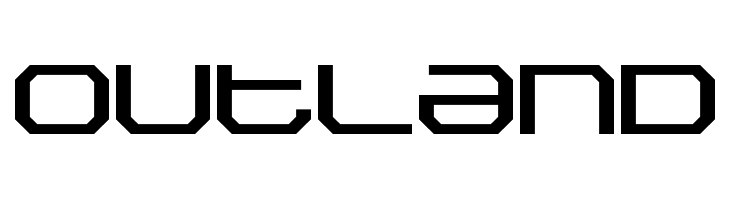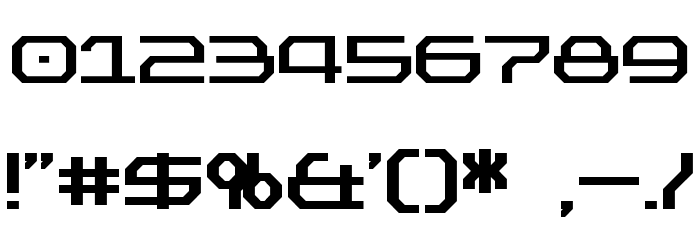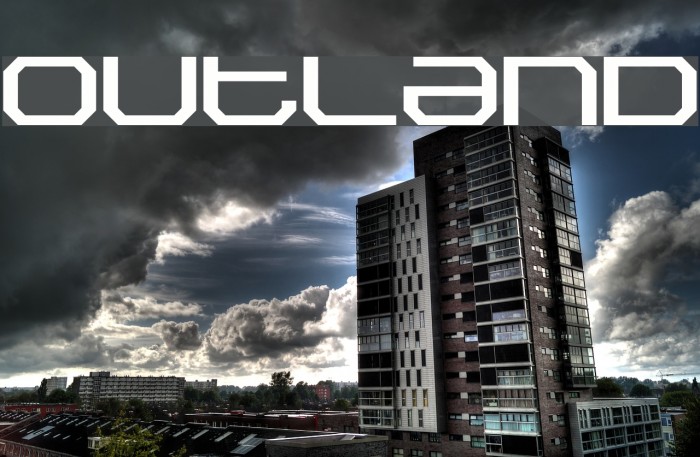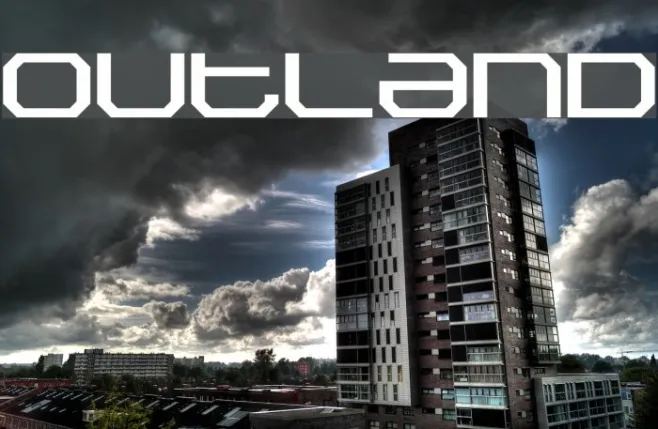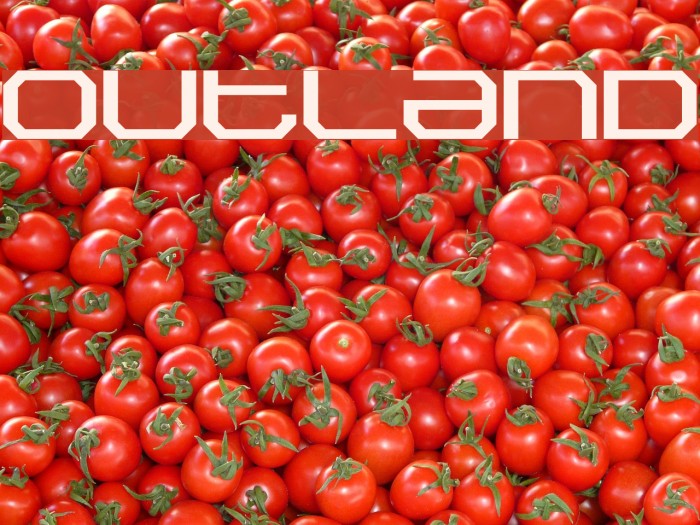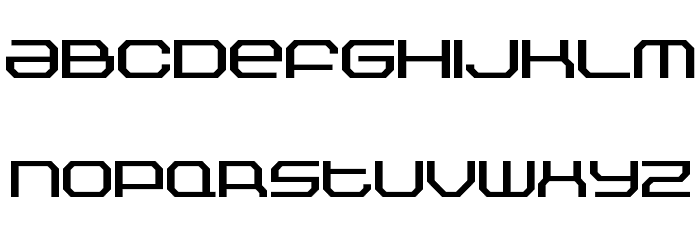
Outland Font
This font features a futuristic and geometric design, characterized by its angular and block-like letterforms. The uppercase and lowercase letters share a consistent style, with sharp edges and a uniform thickness throughout. The numbers and special characters maintain this cohesive look, adding to the font's modern and tech-inspired aesthetic. The overall appearance is clean and structured, making it suitable for projects that require a contemporary and innovative touch. Its distinct style can be effectively used in digital interfaces, gaming titles, or technology branding.
A futuristic, geometric font with angular, block-like letterforms.
• Proposed Projects: Ideal for technology branding, gaming titles, digital interfaces, and modern advertising.
• Category: Decorative/Display
• Contrast: Low
• Overall Style: Modern
• Use Case: Headlines, Logos